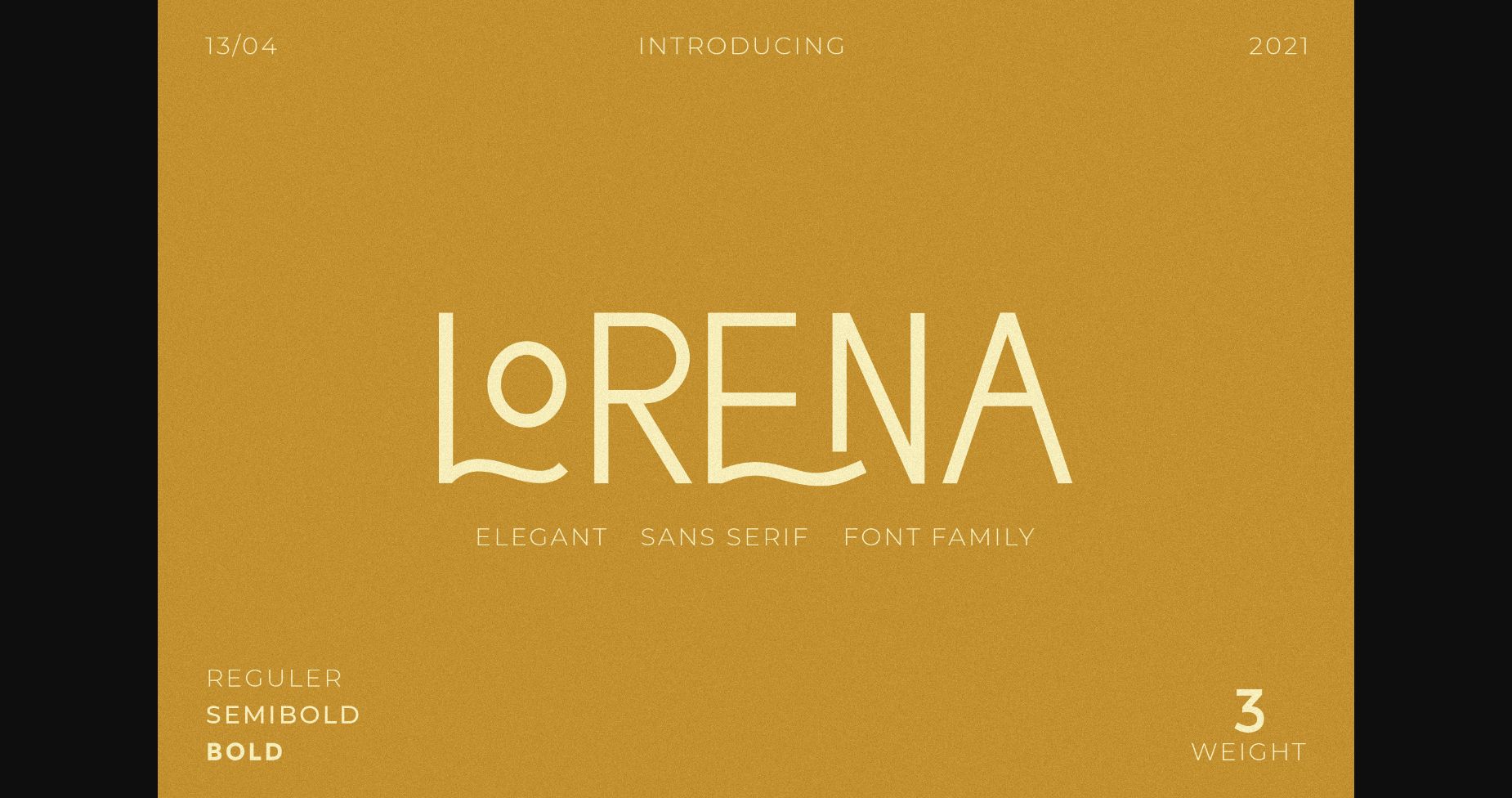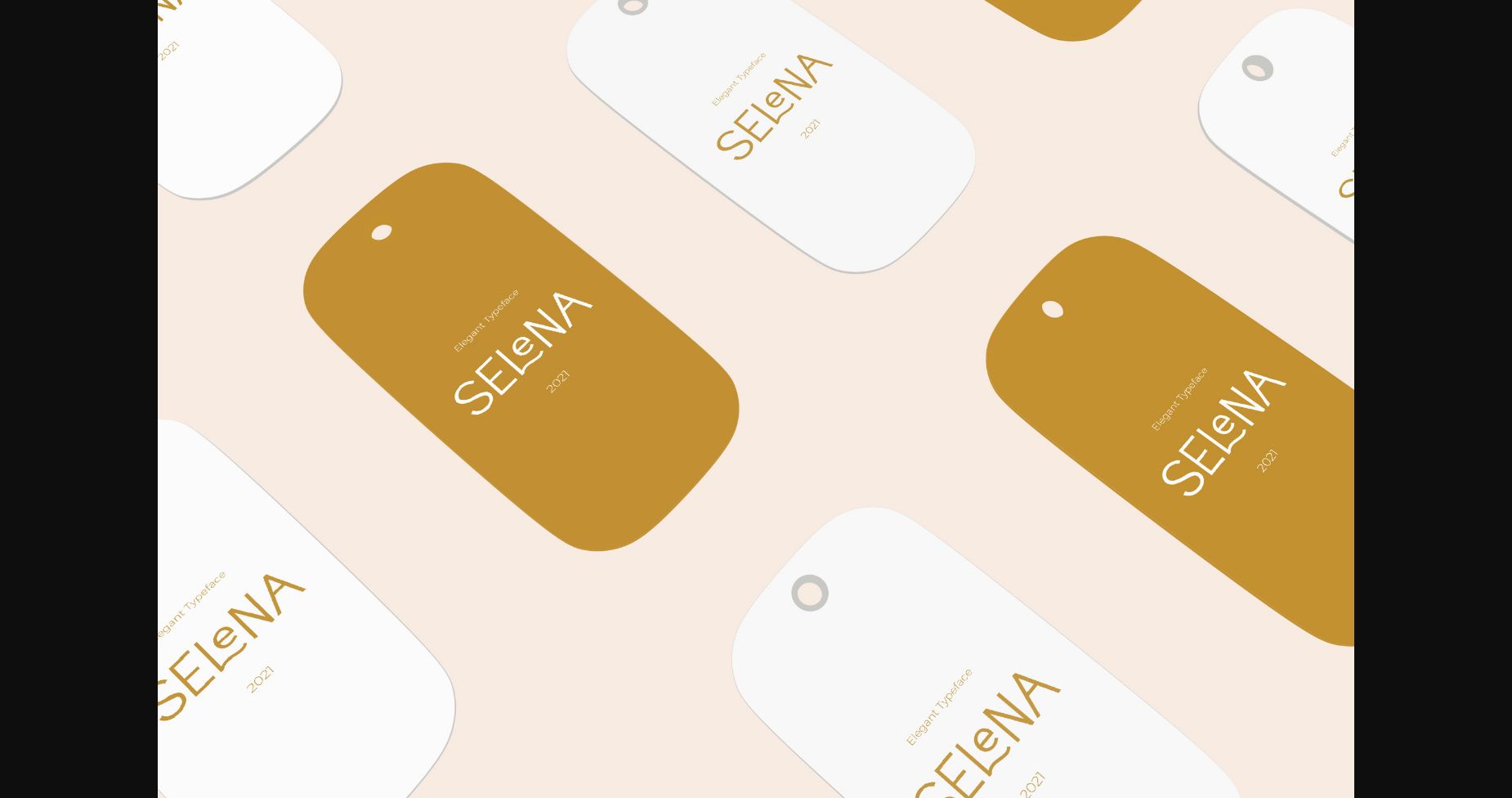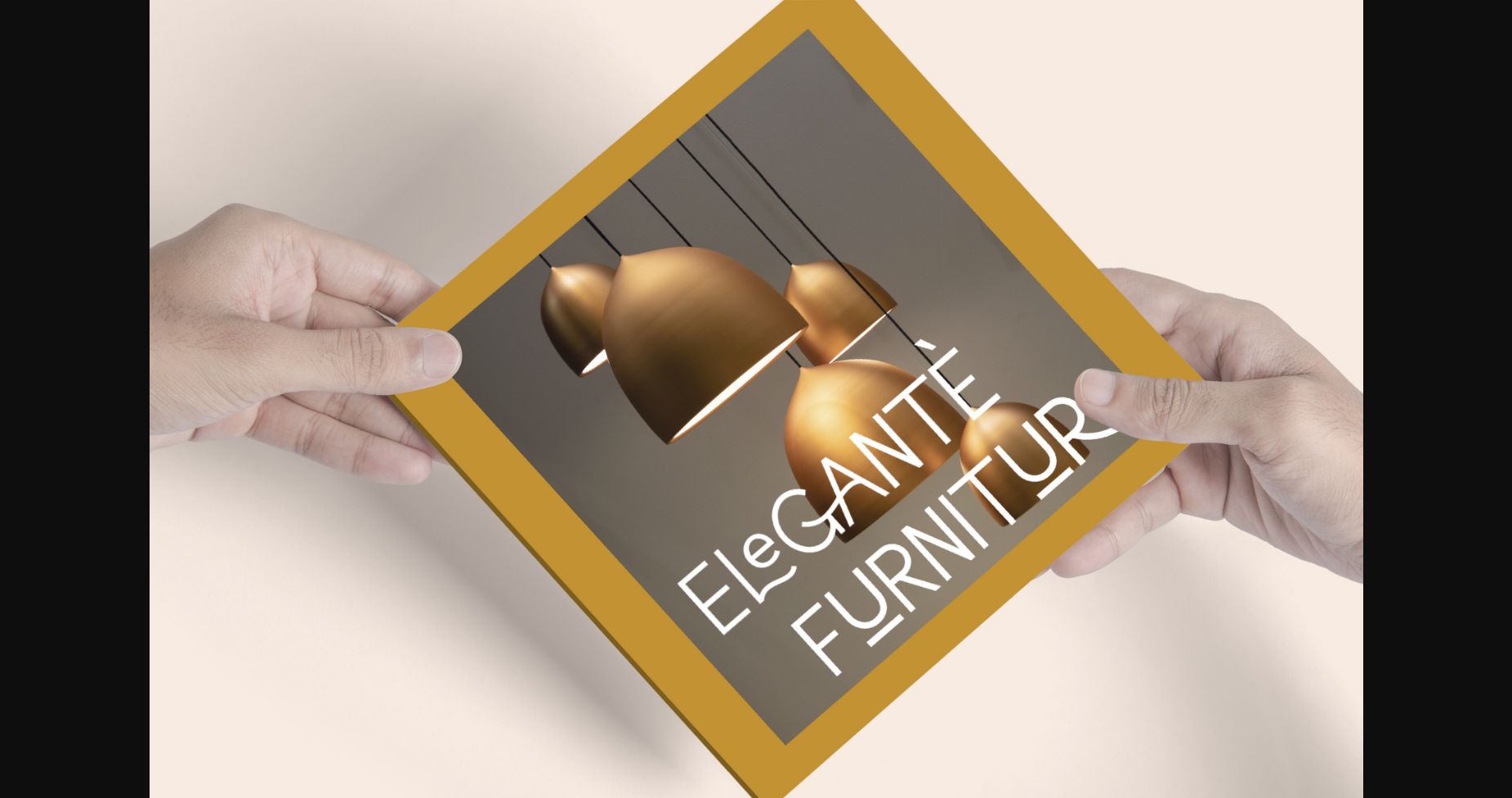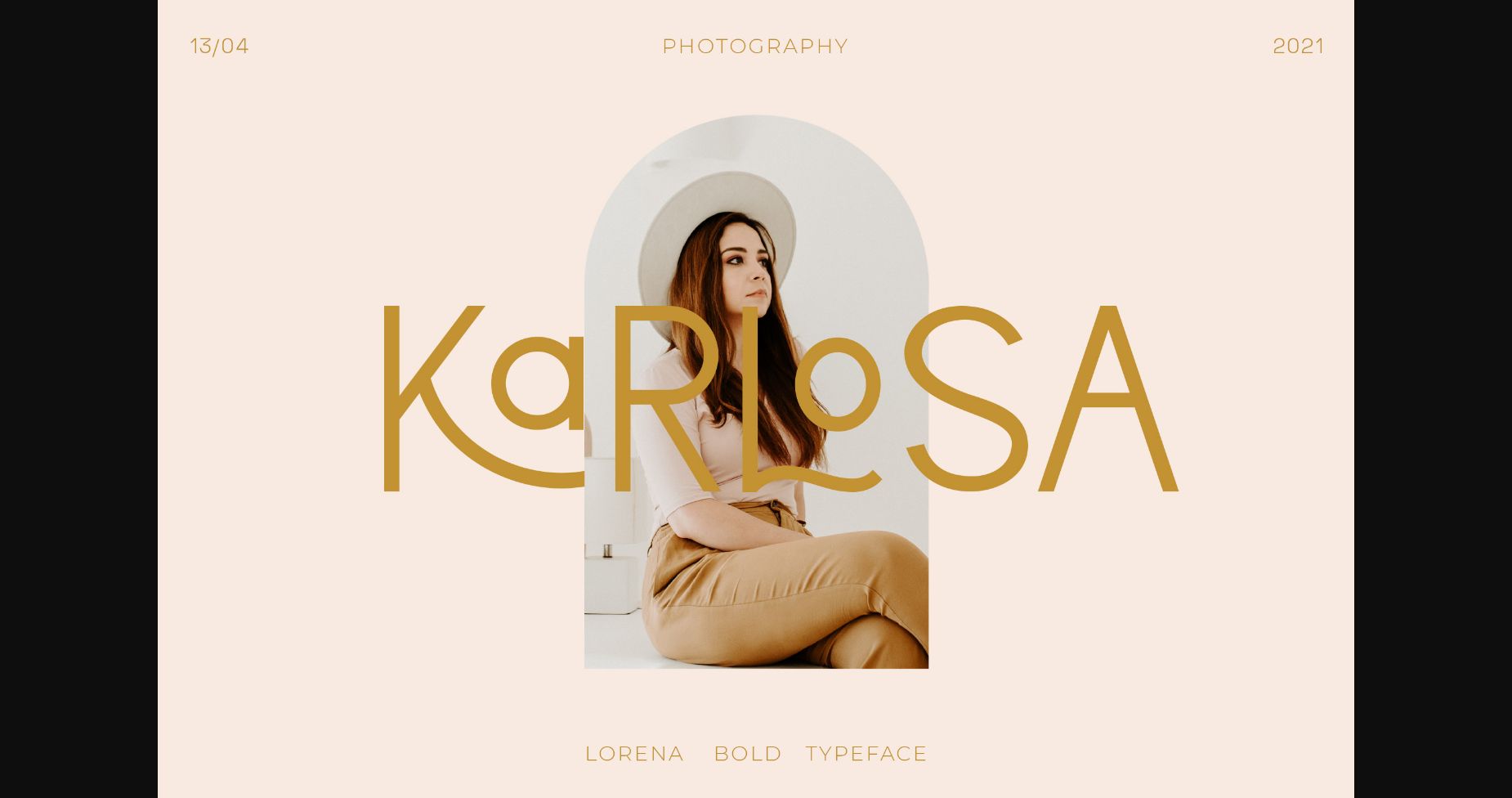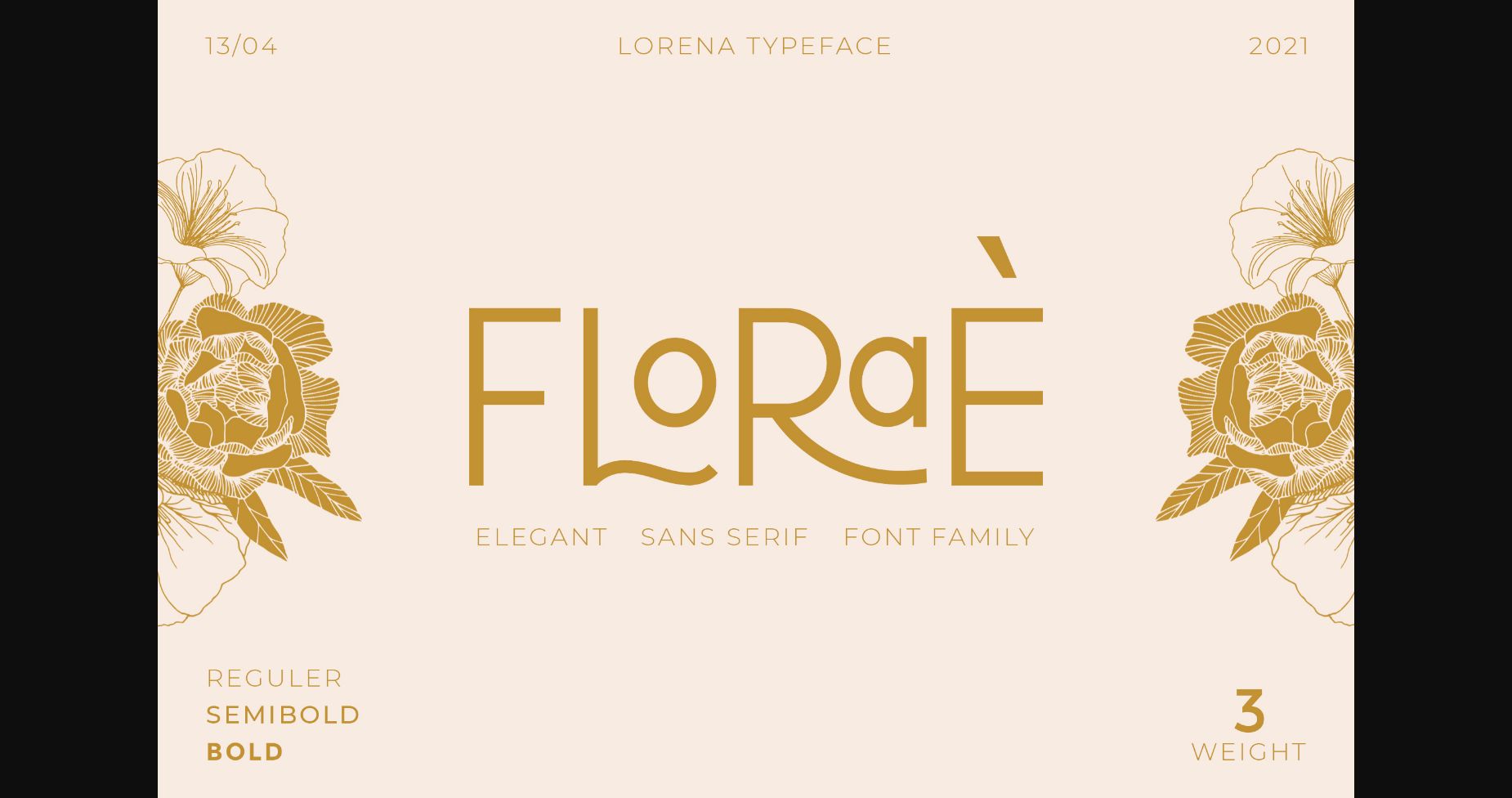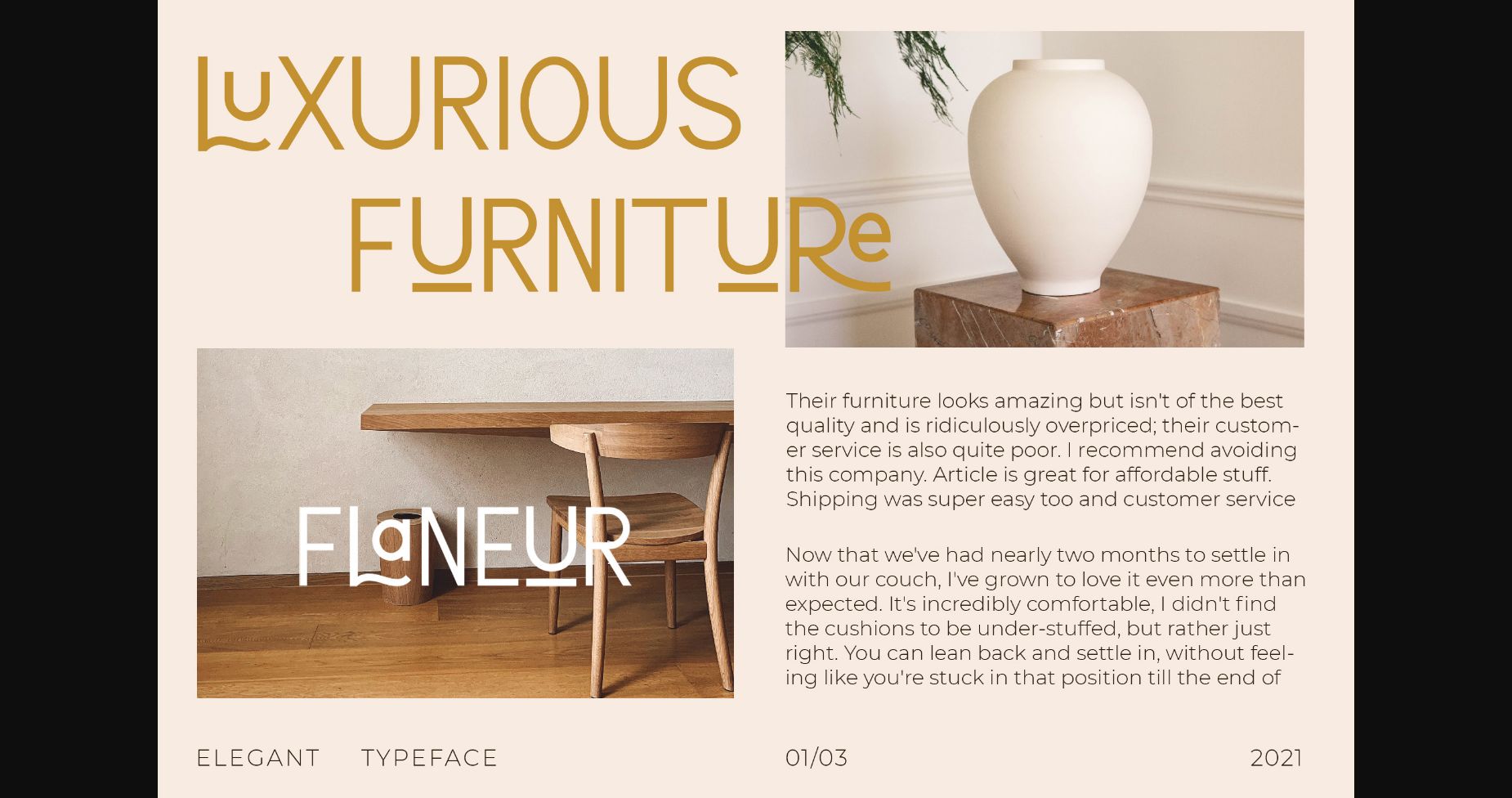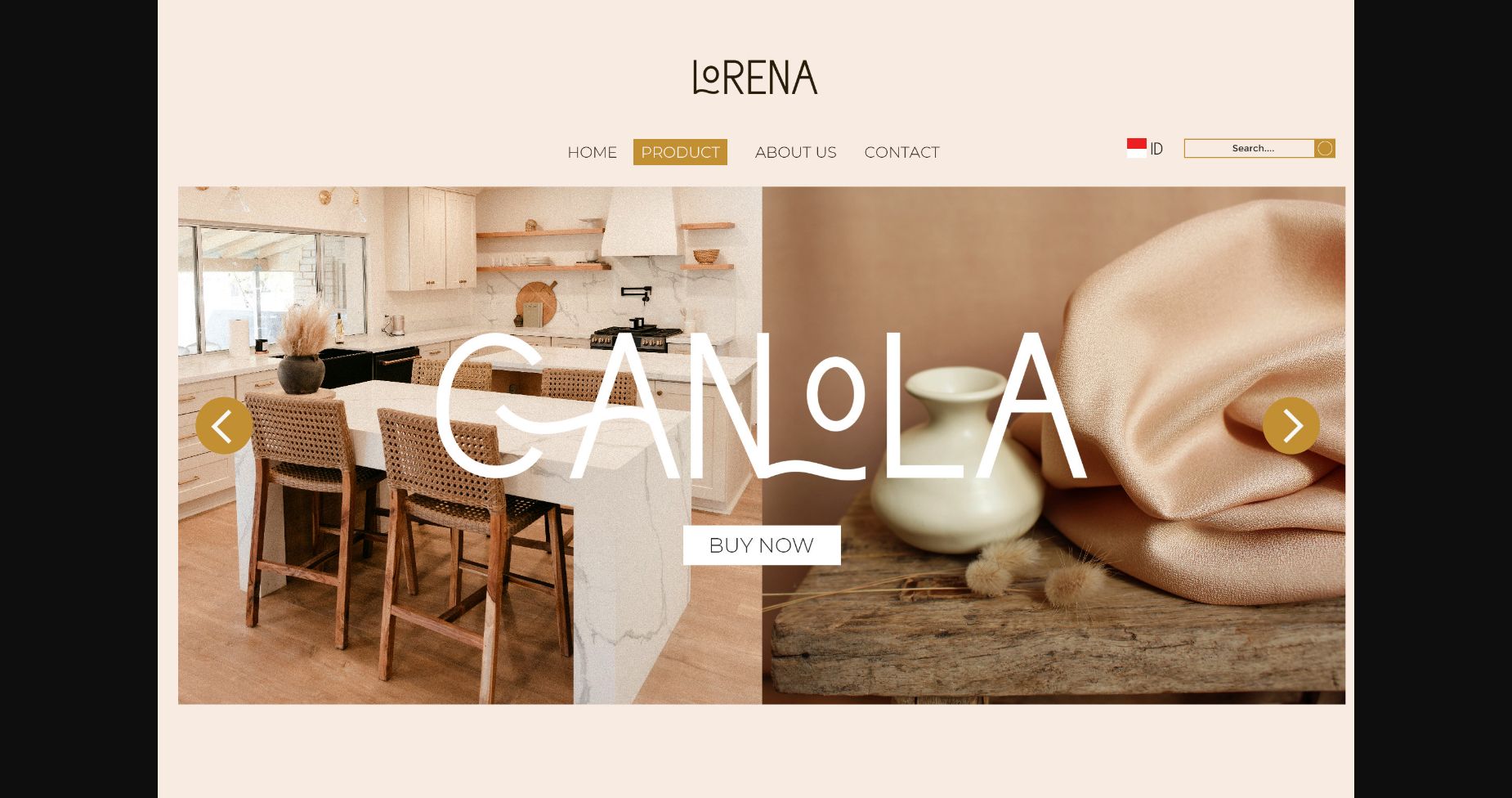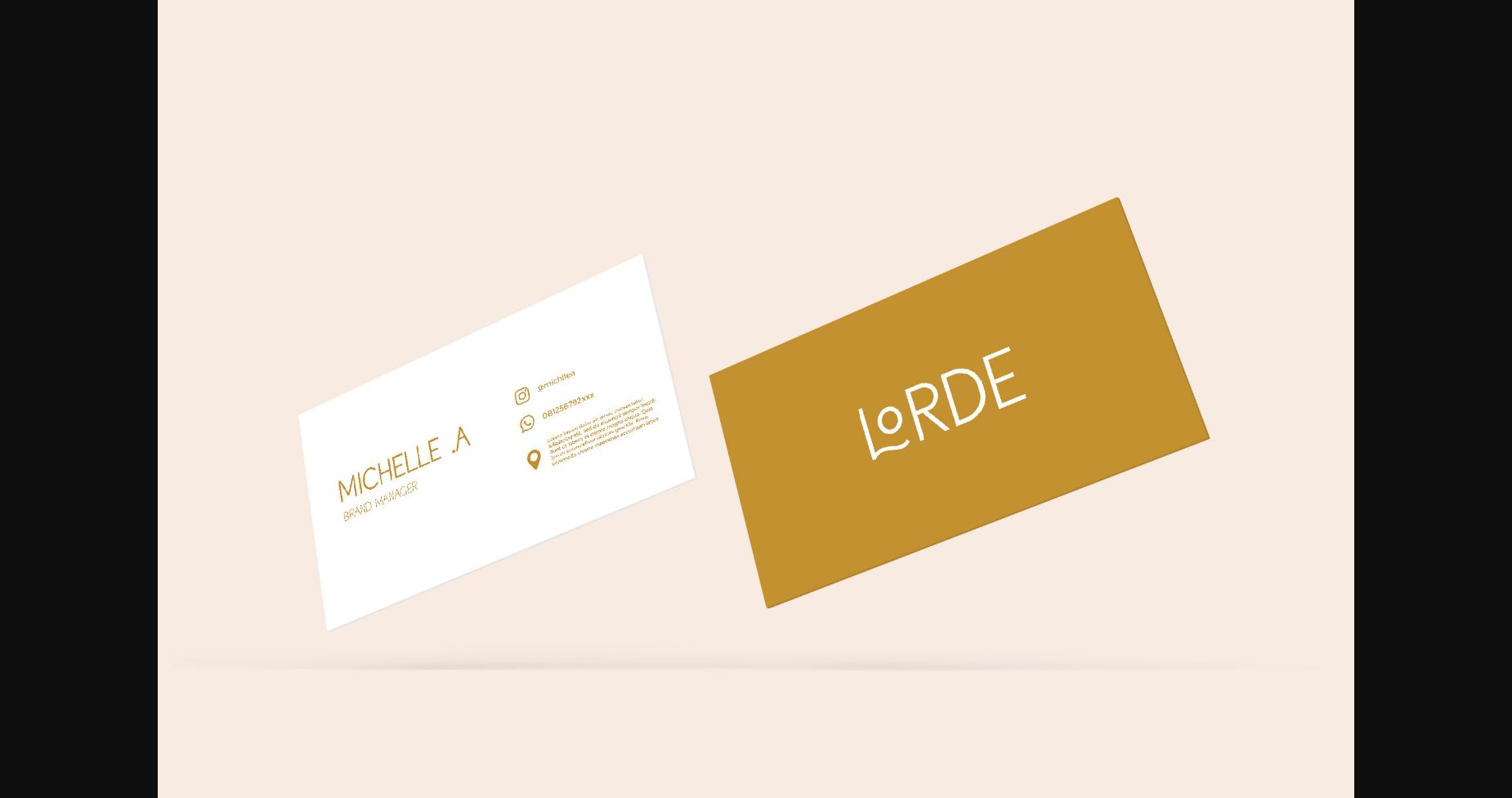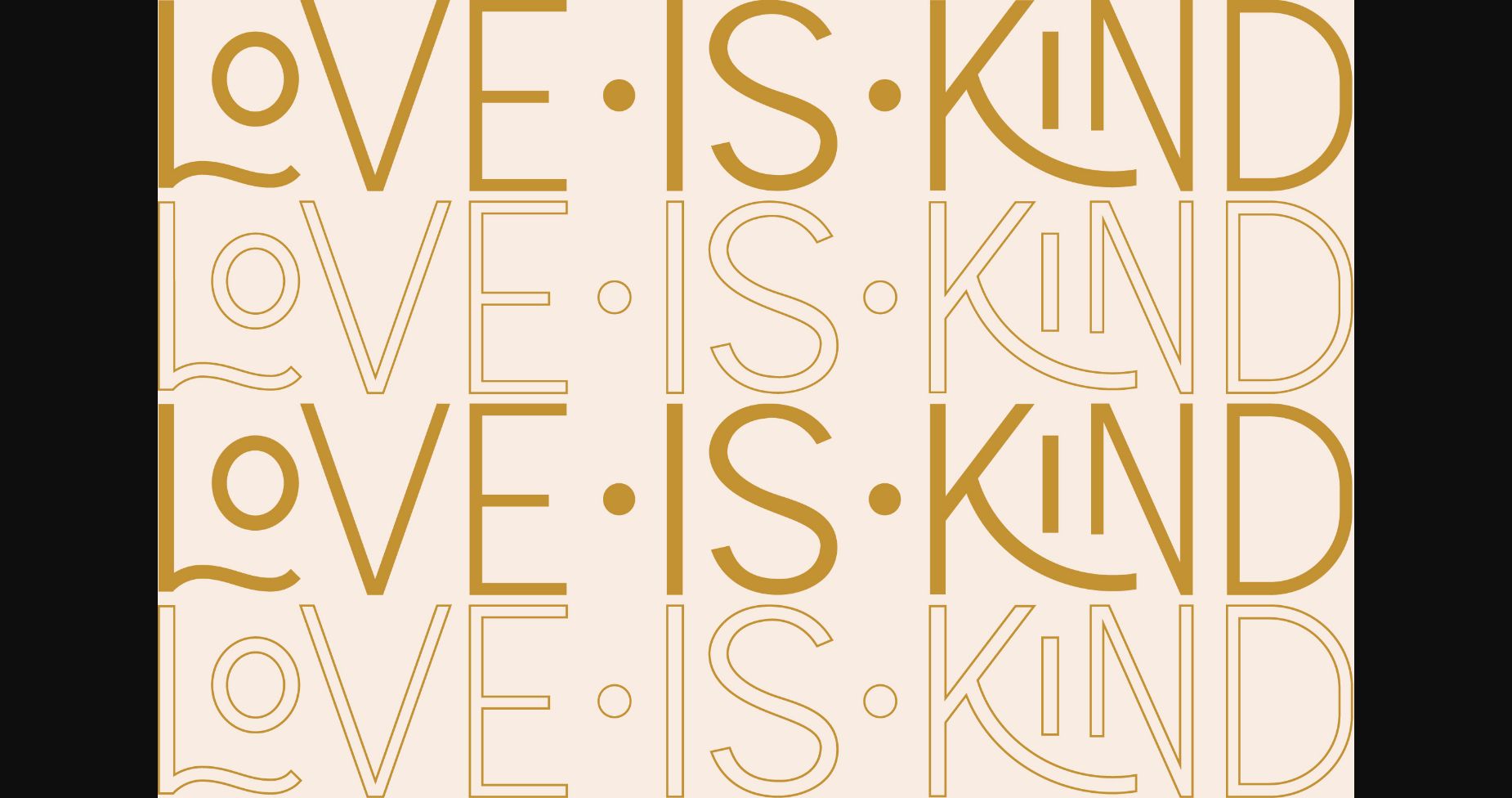
Lorena Font
About Lorena Font
Lorena is an elegant and distinct sans serif font. This font is PUA encoded which means you can access all of the glyphs and swashes with ease!